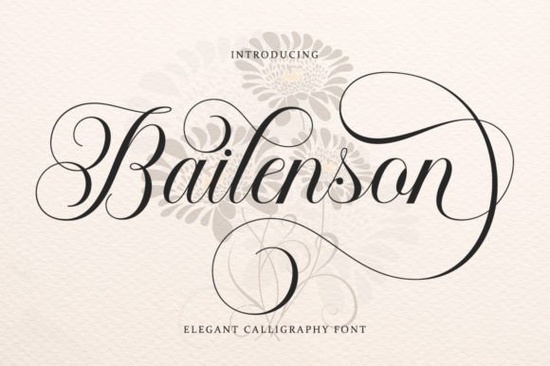
If you're looking for a script font that feels both timeless and personal like something written with care by hand Bailenson Font is worth your attention. It’s a calligraphic typeface inspired by Italian women’s handwriting and medieval manuscripts, so it carries quiet confidence and warmth without feeling stiff or overly ornate. Designers and crafters often reach for Bailenson when they need elegance that still breathes whether that’s for wedding stationery, boutique branding, or a small-batch greeting card line.
What makes Bailenson work so well for real projects?
Unlike some script fonts that rely on dramatic swashes or tight spacing, Bailenson balances flow and readability. Its letterforms have gentle contrast, soft entry and exit strokes, and consistent rhythm so it holds up at small sizes (think business cards or certificate text) and shines large (like book covers or wall art). Because it was designed as a cohesive family not just a single weight it scales naturally across print and digital use.
It’s especially popular among print-on-demand sellers who focus on luxury niches: think “vintage botanical” journals, artisanal tea labels, or personalized keepsakes. Small businesses love how it adds distinction to logos without needing extra graphic elements just clean, confident typography. And if you’ve ever struggled to find a script that doesn’t look like every other wedding font on the market, Bailenson stands out quietly, not loudly.
How does it compare to other elegant script fonts?
While Bailenson leans into historical refinement, other scripts serve different moods. Letterland Font, for example, has a friendlier, more rounded energy great for children’s books or playful branding. Montana Font offers bolder contrast and sharper angles, making it ideal for modern logos or apparel prints where impact matters more than delicacy. If you prefer something with subtle texture and organic variation, Highland Grove Font brings gentle irregularity like ink slightly bleeding into paper.
For those drawn to minimalist elegance with a contemporary twist, Whimza Font uses restrained flourishes and open spacing perfect for clean packaging or editorial layouts. And if your project sits at the intersection of wellness and craftsmanship say, a yoga studio or herbal apothecary you might also consider The Matcha Club Font, which pairs soft curves with grounded structure.
Where do people actually use Bailenson?
Real users report strong performance in these contexts:
- Wedding favors and invitations: Couples appreciate how it feels intimate but never cutesy especially paired with muted tones or linen textures.
- Certificates and diplomas: Its formal roots make it appropriate for academic or achievement-based documents, yet it avoids cold formality.
- Book covers for literary fiction or memoirs: Readers subconsciously associate its rhythm with storytelling and sincerity.
- Small-batch product labels: Think handmade soap, loose-leaf tea, or ceramic studio stamps where authenticity matters more than polish.
- Branding for service-based creatives: Photographers, florists, and planners use it to signal care and attention to detail.
One note: Bailenson works best when given room to breathe. Avoid cramming it into narrow columns or pairing it with other highly decorative fonts. Let it lead and choose a simple sans-serif (like Montserrat or Lato) for supporting text.
Before adding it to your next project, ask yourself: Does this need warmth? Does it benefit from quiet sophistication over bold personality? If yes Bailenson is likely a thoughtful fit. Try setting a short phrase in all caps first (“Est. 2024”, “Hand-Poured”, “With Love”) to test its presence and balance. Then layer in supporting type to see how the hierarchy feels.